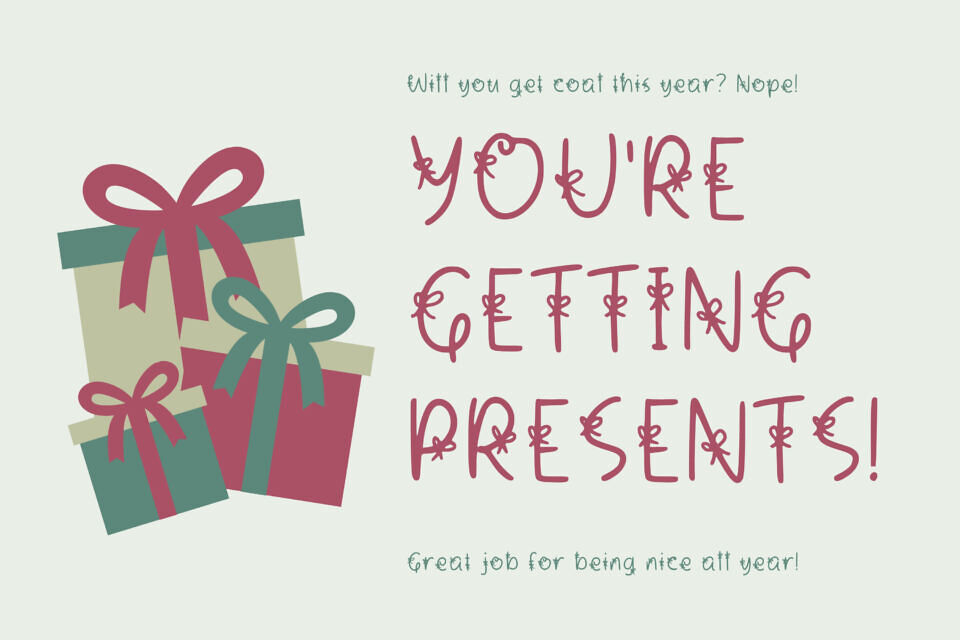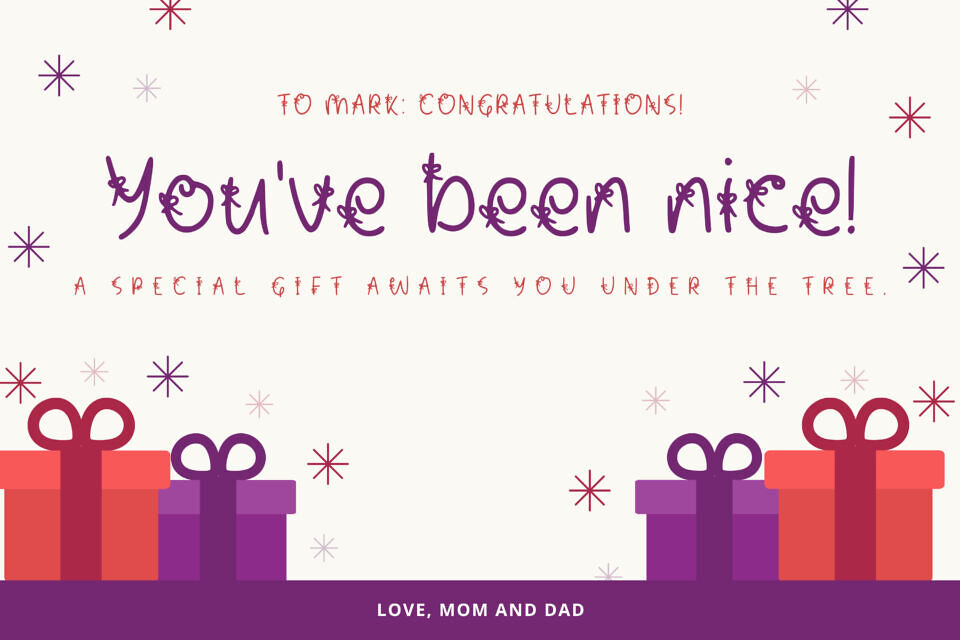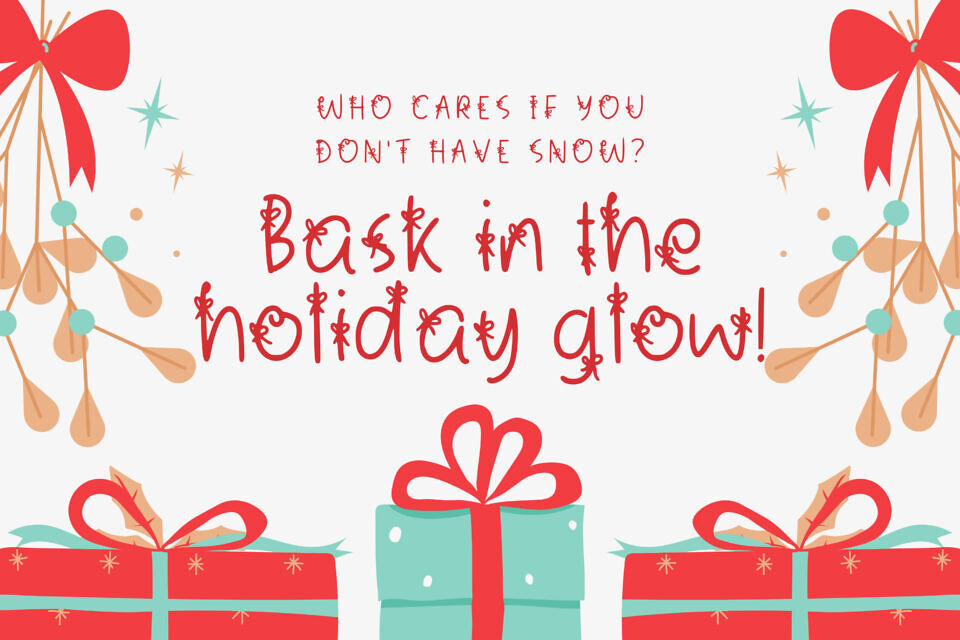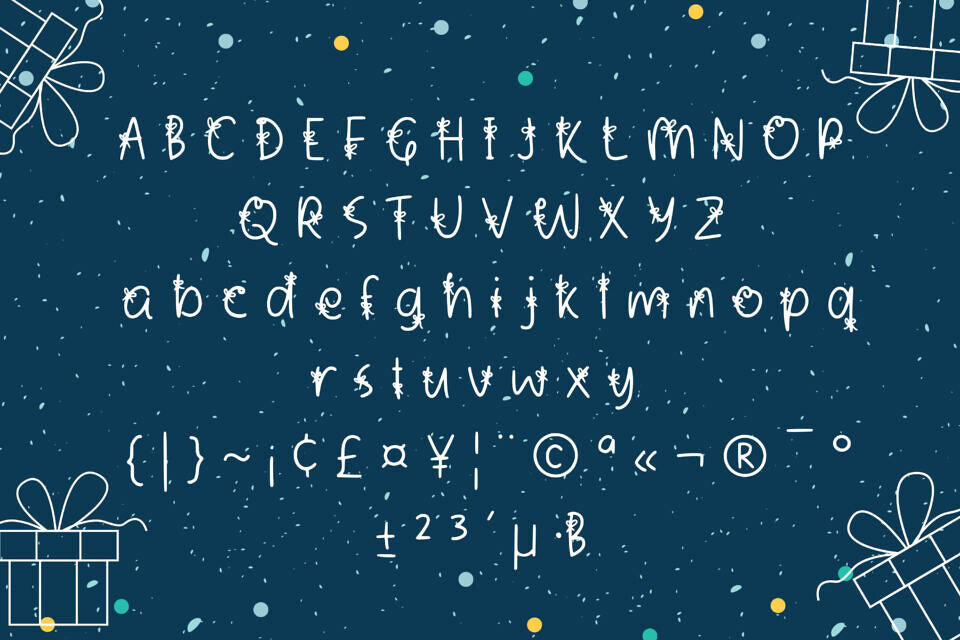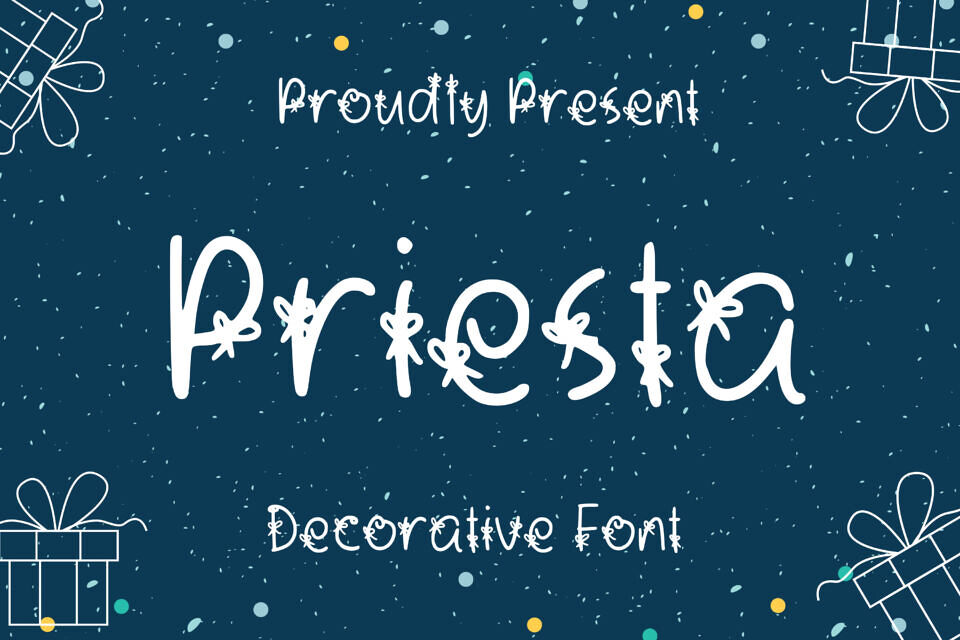
Priesta Font
Priesta is a uniquely designed and chic display font. Add this lovely looking font to each of your love letters, wedding invitations or favorite design ideas, and you will be astounded by the outcome.
Designed by: Aisyah